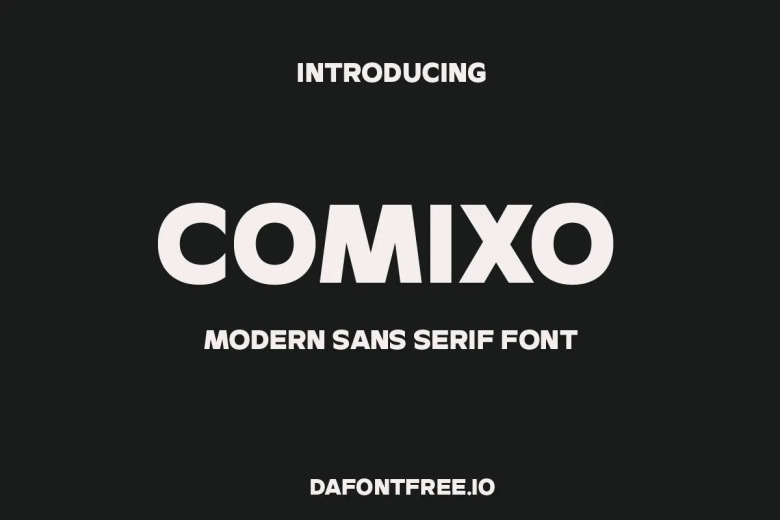
Comixo Font
Comixo is a modern and classy sans serif font, perfect for display for headings, logos branding magazines product packaging or invitation. Comixo does have clean lines and smooth curves that can greatly adds a class in any of the projects.
Comixo Sans Serif Font